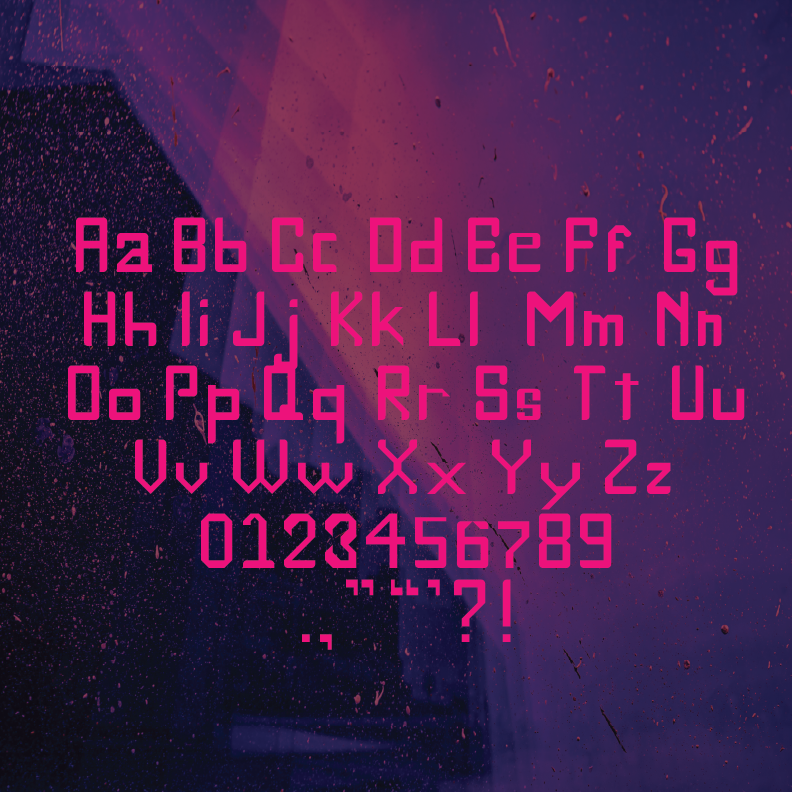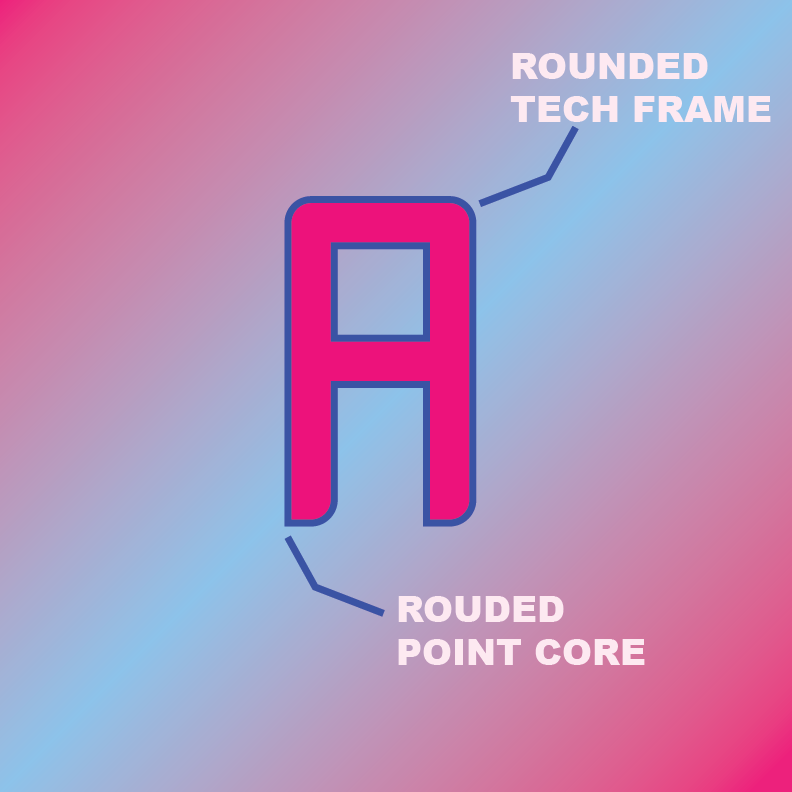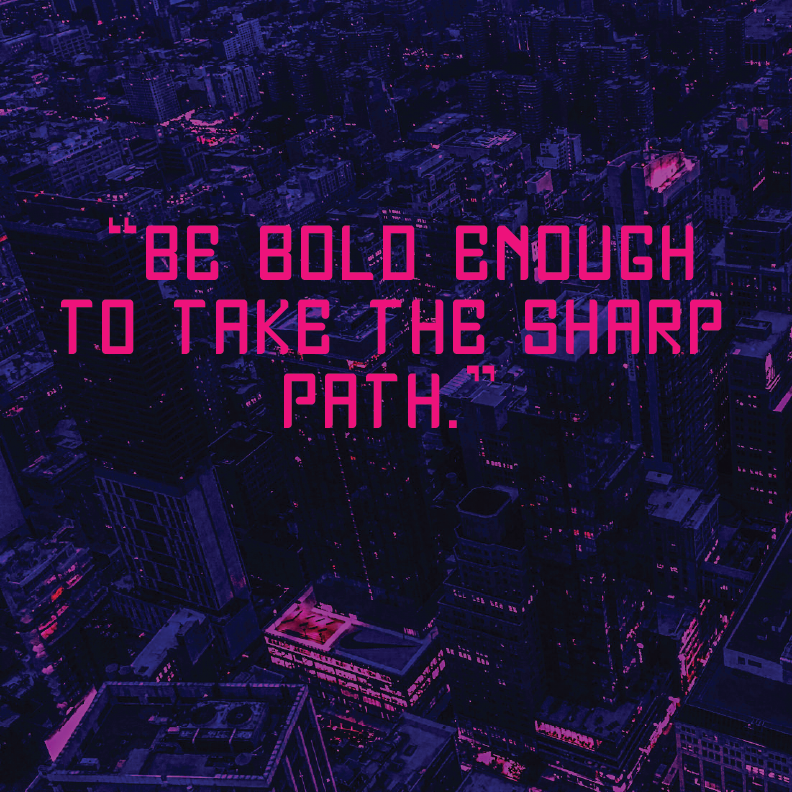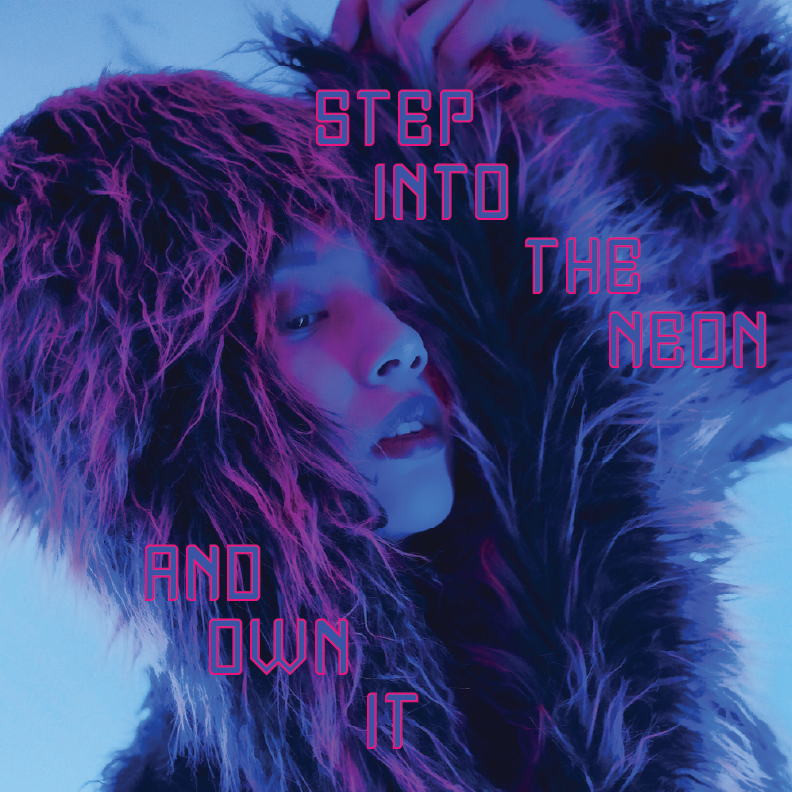
• Neon Fracture is a bold, futuristic display typeface built around sharp angles, geometric lines, and intentionally fractured shapes. Its broken, segmented letterforms give it a strong cyberpunk and glitch‑tech aesthetic, making it perfect for projects that need a sense of digital rebellion or high‑tech distortion.
Neon Fracture (All Caps)by Fatima Martinez (lilpoyon)